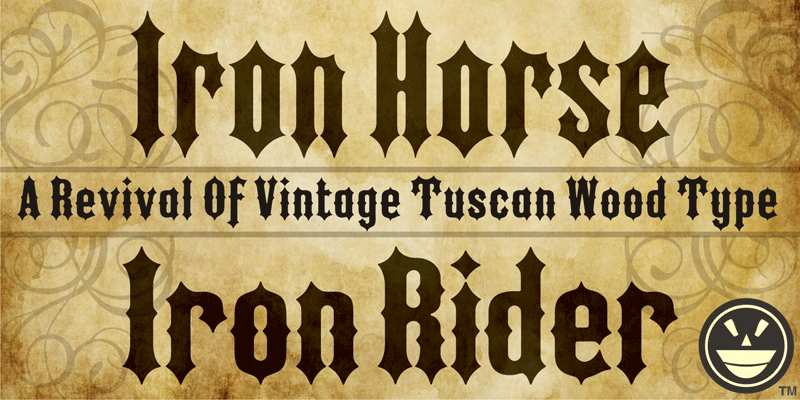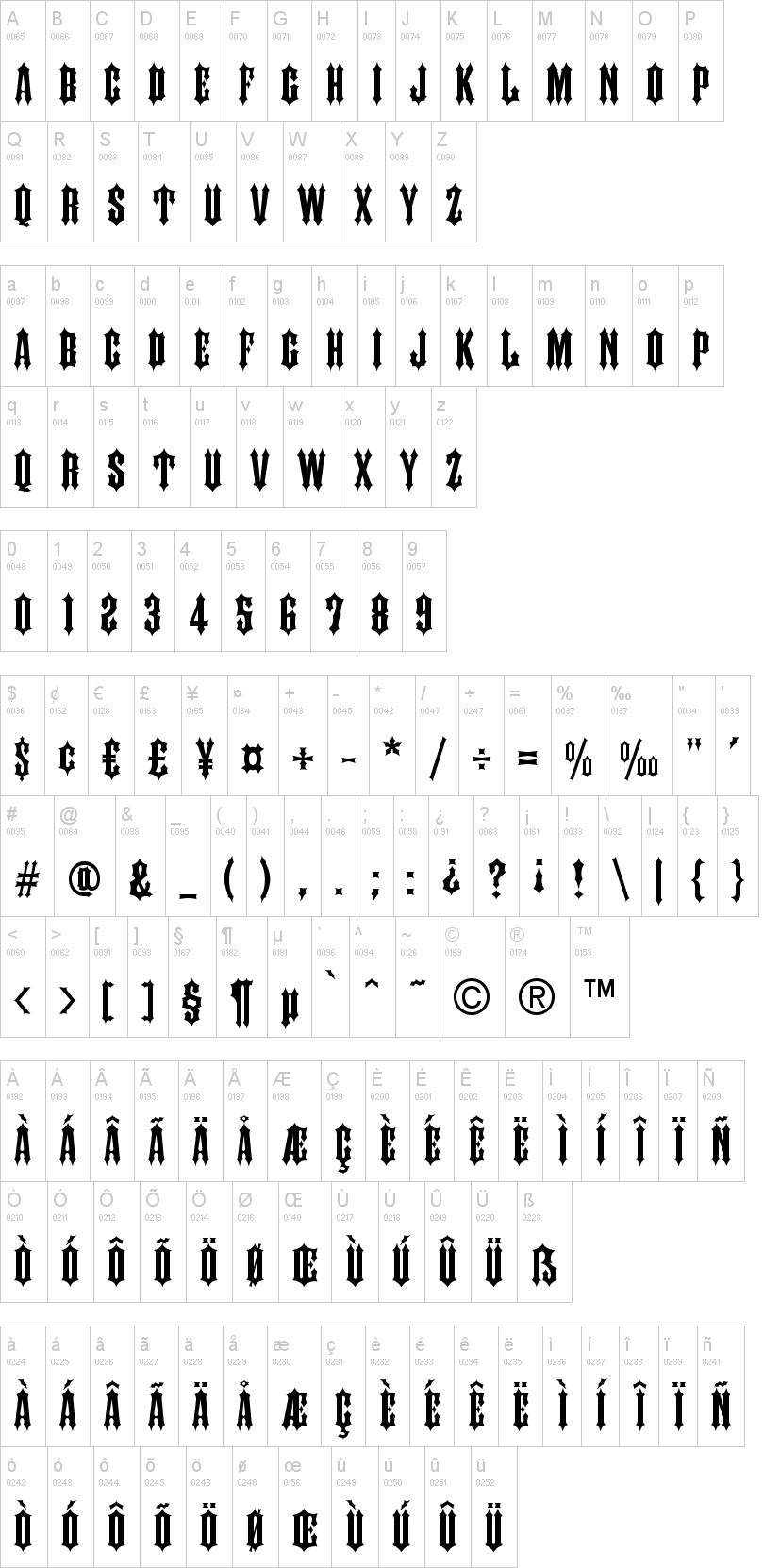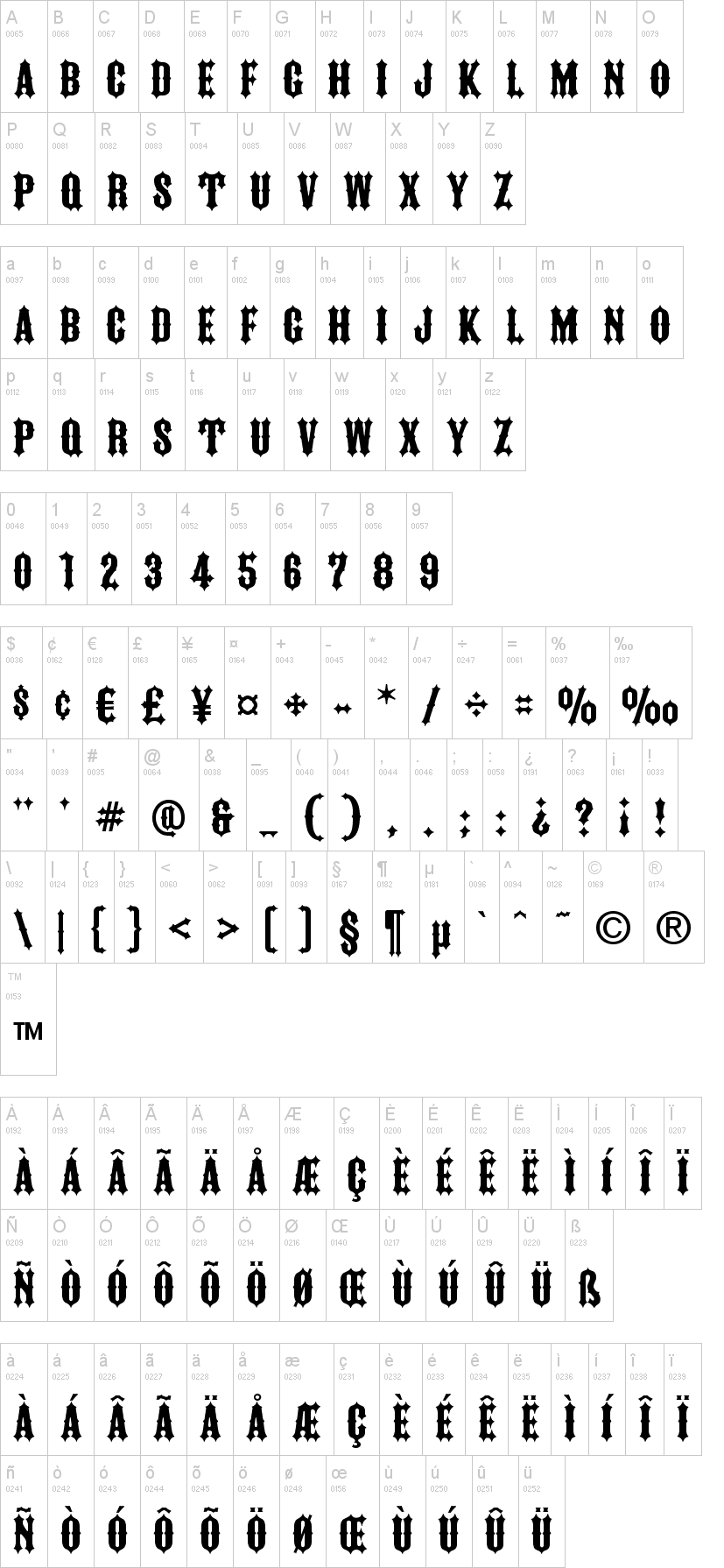
The Iron Family is a revival of two classic tuscan wood type fonts. With a recent history of identifying everything from Little League teams to chopper magazines, the influence of these spike-filled old-timers is undeniable. Whether the theme is Western, skateboards or a horror flick, these fonts have been there. So arm your computer with the latest spin on a pair of vintage favorites.